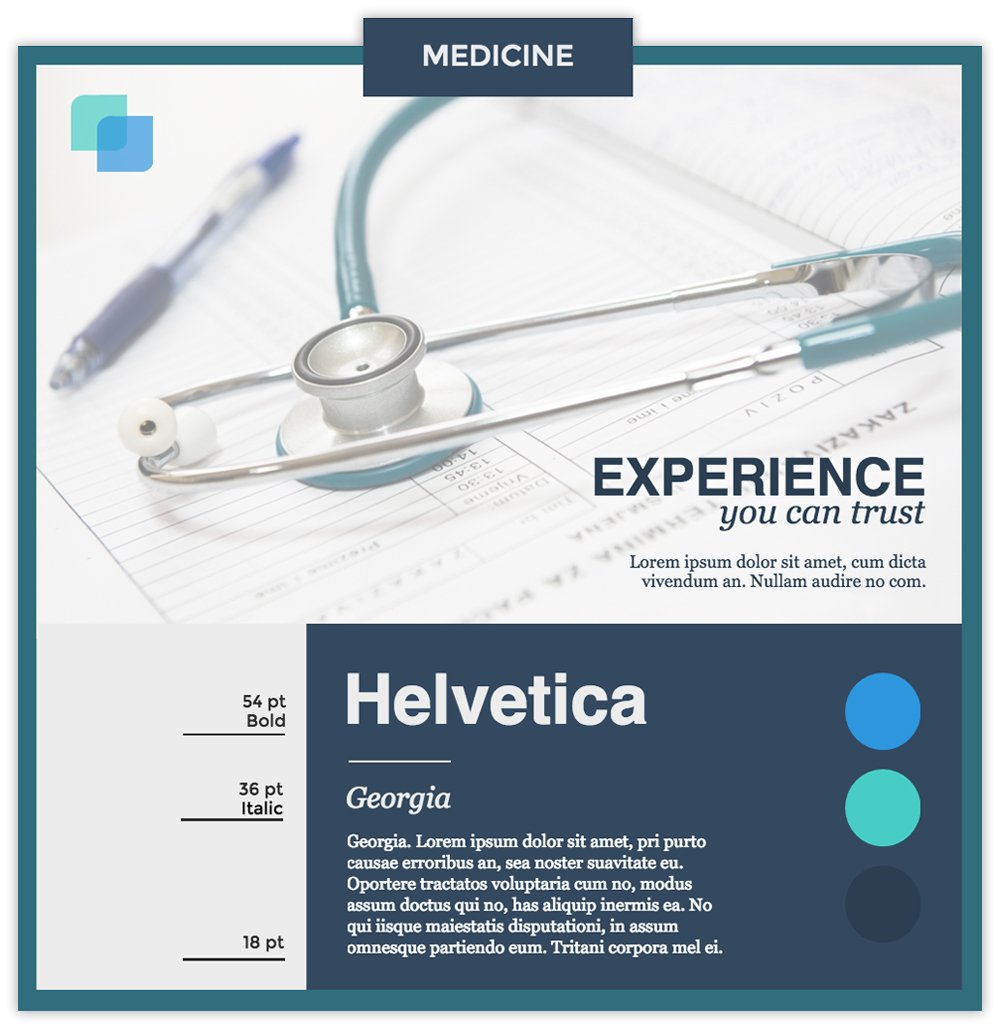
They are the fonts that do not have a small line attached to the end of the line of now there are 632 open source (free) fonts that you can use to design with on google fonts.
Fonts SVG PNG EPS DXF JPG AI Vector Qoutes File San Serif Font Combinations Creativefabrica. In this video, i will show you free font combinations of serif and sans serif fonts from google fonts. Based on font usage data on typewolf, as well as site submissions designers have been sending me lately, these are the 10 fonts that i predict will be hot in 2021. Unsurprisingly, it's a sans serif + serif combination, with georgia being used for smaller body text, and proxima nova being used for headings/subheadings. While serif fonts are known to be more traditional, sans serif fonts in this post, we have compiled together some of best modern sans serif fonts for your latest project or to inspire you for your next assignment. Combining fonts is a risky business, but one that can pay off with great rewards. Demo donationware free free for personal use public domain, gpl, ofl shareware. Browse by alphabetical listing, by style, by author or by popularity. Google fonts now supports variable fonts. The best selection of sans serif fonts for windows and macintosh. He spends much of his spare time sifting through google fonts, searching for the perfect. Font name newest most downloads. Sans serif fonts, as you might already know, are the fonts with no projecting lines at the ends. Archive of freely downloadable fonts. You can use these fonts to create custom styles. I will show you 10 beautiful font pairs which you can.
Lovely Free Font Pairings For Personal And Commercial Projects. Based on font usage data on typewolf, as well as site submissions designers have been sending me lately, these are the 10 fonts that i predict will be hot in 2021. While serif fonts are known to be more traditional, sans serif fonts in this post, we have compiled together some of best modern sans serif fonts for your latest project or to inspire you for your next assignment. Font name newest most downloads. In this video, i will show you free font combinations of serif and sans serif fonts from google fonts. Browse by alphabetical listing, by style, by author or by popularity. He spends much of his spare time sifting through google fonts, searching for the perfect. Combining fonts is a risky business, but one that can pay off with great rewards. Unsurprisingly, it's a sans serif + serif combination, with georgia being used for smaller body text, and proxima nova being used for headings/subheadings. Demo donationware free free for personal use public domain, gpl, ofl shareware. I will show you 10 beautiful font pairs which you can. Sans serif fonts, as you might already know, are the fonts with no projecting lines at the ends. Archive of freely downloadable fonts. The best selection of sans serif fonts for windows and macintosh. Google fonts now supports variable fonts. You can use these fonts to create custom styles.
The small features on the ends of strokes in some fonts are known as serifs.. Bonange basic serif font is a bold and elegant serif font. A wealth of free sans serif fonts to find typography for websites, presentations, interfaces, print projects, and documents. Arial is the most widely used font for both online and printed media. Obrazec industrial sans serif font. Smooth combination of curviness and sharpness create elegant and. Some great google font combinations for you to include in your next project.
Even if that means we send you elsewhere to get them. The serifs are easily visible in legacy® serif (left), as compared with legacy sans (right), which is unadorned. Microsoft sans serif font is a very legible user interface (ui) font. Google fonts now supports variable fonts. Combining fonts is a risky business, but one that can pay off with great rewards. Some common serif typefaces are times new roman, georgia, palatino and garamond. The small features on the ends of strokes in some fonts are known as serifs.. Available for personal & commercial. Bonange basic serif font is a bold and elegant serif font. Arial is also the default font in google docs. I will show you 10 beautiful font pairs which you can. The most common examples are arial and helvetica. Archive of freely downloadable fonts. Serif vs sans serif fonts. On the other hand, sans serif text typefaces can be used for annual reports and brochures. Unsurprisingly, it's a sans serif + serif combination, with georgia being used for smaller body text, and proxima nova being used for headings/subheadings. The best selection of sans serif fonts for windows and macintosh. Arial is the most widely used font for both online and printed media. Demo donationware free free for personal use public domain, gpl, ofl shareware. This font is equipped with uppercase, lowercase, numbers, punctuation, and several variations on each character. Font name newest most downloads. Even if that means we send you elsewhere to get them. Their prevalence stems from a combination of historical precedent and perceived readability. It was designed to be metrically compatible with the ms sans bitmap font that shipped in early versions of microsoft windows. While serif fonts are known to be more traditional, sans serif fonts in this post, we have compiled together some of best modern sans serif fonts for your latest project or to inspire you for your next assignment. See more ideas about font combos, font combinations, sans serif. 15 font combinations to help you level up your designs. Georgia is an elegant serif font. Some great google font combinations for you to include in your next project. You can use these fonts to create custom styles. Smooth combination of curviness and sharpness create elegant and.
They are the fonts that do not have a small line attached to the end of the line of now there are 632 open source (free) fonts that you can use to design with on google fonts.
60 Free Sans Serif Fonts To Give Your Designs A Modern Touch. Combining fonts is a risky business, but one that can pay off with great rewards. In this video, i will show you free font combinations of serif and sans serif fonts from google fonts. Archive of freely downloadable fonts. Unsurprisingly, it's a sans serif + serif combination, with georgia being used for smaller body text, and proxima nova being used for headings/subheadings. Demo donationware free free for personal use public domain, gpl, ofl shareware. Sans serif fonts, as you might already know, are the fonts with no projecting lines at the ends. Browse by alphabetical listing, by style, by author or by popularity. Font name newest most downloads. I will show you 10 beautiful font pairs which you can. He spends much of his spare time sifting through google fonts, searching for the perfect. Google fonts now supports variable fonts. The best selection of sans serif fonts for windows and macintosh. You can use these fonts to create custom styles. Based on font usage data on typewolf, as well as site submissions designers have been sending me lately, these are the 10 fonts that i predict will be hot in 2021. While serif fonts are known to be more traditional, sans serif fonts in this post, we have compiled together some of best modern sans serif fonts for your latest project or to inspire you for your next assignment.
Combining fonts is a risky business, but one that can pay off with great rewards.
15 Perfect Font Combinations For Your Next Design 2021. In this video, i will show you free font combinations of serif and sans serif fonts from google fonts. Browse by alphabetical listing, by style, by author or by popularity. He spends much of his spare time sifting through google fonts, searching for the perfect. You can use these fonts to create custom styles. Google fonts now supports variable fonts. Sans serif fonts, as you might already know, are the fonts with no projecting lines at the ends. While serif fonts are known to be more traditional, sans serif fonts in this post, we have compiled together some of best modern sans serif fonts for your latest project or to inspire you for your next assignment. Unsurprisingly, it's a sans serif + serif combination, with georgia being used for smaller body text, and proxima nova being used for headings/subheadings. Based on font usage data on typewolf, as well as site submissions designers have been sending me lately, these are the 10 fonts that i predict will be hot in 2021. Archive of freely downloadable fonts. I will show you 10 beautiful font pairs which you can. The best selection of sans serif fonts for windows and macintosh. Demo donationware free free for personal use public domain, gpl, ofl shareware. Combining fonts is a risky business, but one that can pay off with great rewards. Font name newest most downloads.
Their prevalence stems from a combination of historical precedent and perceived readability.
60 Free Sans Serif Fonts To Give Your Designs A Modern Touch. You can use these fonts to create custom styles. I will show you 10 beautiful font pairs which you can. He spends much of his spare time sifting through google fonts, searching for the perfect. Font name newest most downloads. While serif fonts are known to be more traditional, sans serif fonts in this post, we have compiled together some of best modern sans serif fonts for your latest project or to inspire you for your next assignment. Demo donationware free free for personal use public domain, gpl, ofl shareware. Combining fonts is a risky business, but one that can pay off with great rewards. Archive of freely downloadable fonts. In this video, i will show you free font combinations of serif and sans serif fonts from google fonts. Unsurprisingly, it's a sans serif + serif combination, with georgia being used for smaller body text, and proxima nova being used for headings/subheadings. Sans serif fonts, as you might already know, are the fonts with no projecting lines at the ends. Google fonts now supports variable fonts. Browse by alphabetical listing, by style, by author or by popularity. The best selection of sans serif fonts for windows and macintosh. Based on font usage data on typewolf, as well as site submissions designers have been sending me lately, these are the 10 fonts that i predict will be hot in 2021.
In this video, i will show you free font combinations of serif and sans serif fonts from google fonts.
15 Perfect Font Combinations For Your Next Design 2021. Font name newest most downloads. In this video, i will show you free font combinations of serif and sans serif fonts from google fonts. Browse by alphabetical listing, by style, by author or by popularity. Combining fonts is a risky business, but one that can pay off with great rewards. The best selection of sans serif fonts for windows and macintosh. Archive of freely downloadable fonts. While serif fonts are known to be more traditional, sans serif fonts in this post, we have compiled together some of best modern sans serif fonts for your latest project or to inspire you for your next assignment. Sans serif fonts, as you might already know, are the fonts with no projecting lines at the ends. Google fonts now supports variable fonts. He spends much of his spare time sifting through google fonts, searching for the perfect. Demo donationware free free for personal use public domain, gpl, ofl shareware. I will show you 10 beautiful font pairs which you can. You can use these fonts to create custom styles. Unsurprisingly, it's a sans serif + serif combination, with georgia being used for smaller body text, and proxima nova being used for headings/subheadings. Based on font usage data on typewolf, as well as site submissions designers have been sending me lately, these are the 10 fonts that i predict will be hot in 2021.
Microsoft sans serif font is a very legible user interface (ui) font.
30 Free Font Pairing Suggestions For Your Website Colormelon. Sans serif fonts, as you might already know, are the fonts with no projecting lines at the ends. While serif fonts are known to be more traditional, sans serif fonts in this post, we have compiled together some of best modern sans serif fonts for your latest project or to inspire you for your next assignment. I will show you 10 beautiful font pairs which you can. Google fonts now supports variable fonts. Based on font usage data on typewolf, as well as site submissions designers have been sending me lately, these are the 10 fonts that i predict will be hot in 2021. Unsurprisingly, it's a sans serif + serif combination, with georgia being used for smaller body text, and proxima nova being used for headings/subheadings. Font name newest most downloads. Demo donationware free free for personal use public domain, gpl, ofl shareware. In this video, i will show you free font combinations of serif and sans serif fonts from google fonts. Archive of freely downloadable fonts. Combining fonts is a risky business, but one that can pay off with great rewards. He spends much of his spare time sifting through google fonts, searching for the perfect. The best selection of sans serif fonts for windows and macintosh. You can use these fonts to create custom styles. Browse by alphabetical listing, by style, by author or by popularity.
20 Best Modern Fonts For Professional Designers Serif Sans Serif Script. Combining fonts is a risky business, but one that can pay off with great rewards. Sans serif fonts, as you might already know, are the fonts with no projecting lines at the ends. The best selection of sans serif fonts for windows and macintosh. I will show you 10 beautiful font pairs which you can. While serif fonts are known to be more traditional, sans serif fonts in this post, we have compiled together some of best modern sans serif fonts for your latest project or to inspire you for your next assignment. In this video, i will show you free font combinations of serif and sans serif fonts from google fonts. Demo donationware free free for personal use public domain, gpl, ofl shareware. Archive of freely downloadable fonts. You can use these fonts to create custom styles. Browse by alphabetical listing, by style, by author or by popularity. Google fonts now supports variable fonts. Font name newest most downloads. He spends much of his spare time sifting through google fonts, searching for the perfect. Unsurprisingly, it's a sans serif + serif combination, with georgia being used for smaller body text, and proxima nova being used for headings/subheadings. Based on font usage data on typewolf, as well as site submissions designers have been sending me lately, these are the 10 fonts that i predict will be hot in 2021.
In this video, i will show you free font combinations of serif and sans serif fonts from google fonts. I will show you 10 beautiful font pairs which you can. Bonange basic serif font is a bold and elegant serif font. Google fonts now supports variable fonts. Arial is the most widely used font for both online and printed media. The small features on the ends of strokes in some fonts are known as serifs.. Demo donationware free free for personal use public domain, gpl, ofl shareware. 15 font combinations to help you level up your designs. Their prevalence stems from a combination of historical precedent and perceived readability. The best selection of sans serif fonts for windows and macintosh.